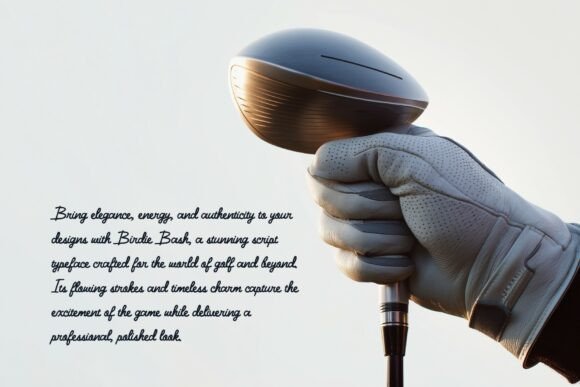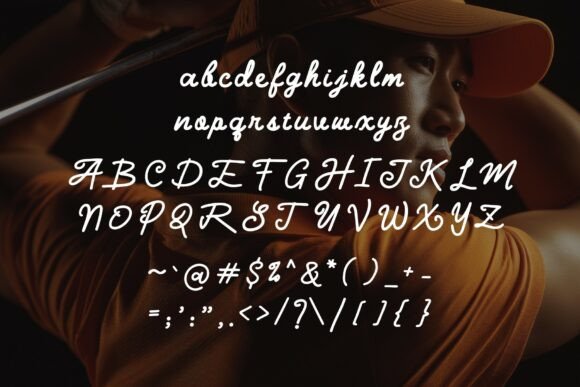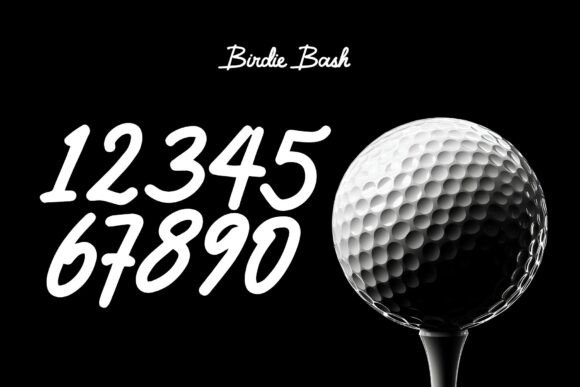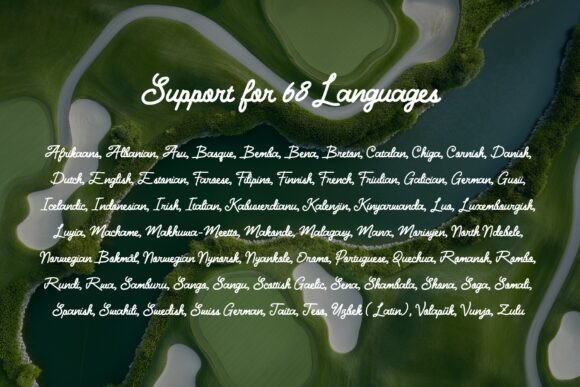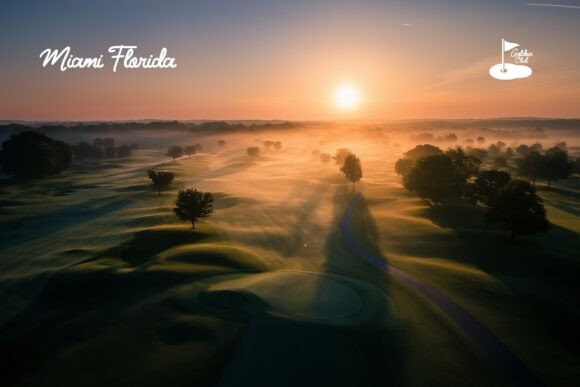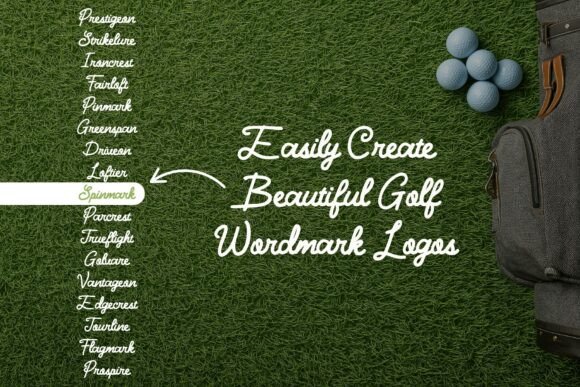
Birdie Bash Font: Elevate Your Designs with Elegance and Energy
Are you looking for a typeface that can bring a touch of sophistication and excitement to your designs? Look no further than Birdie Bash, a stunning script font crafted for the world of golf and beyond. With its flowing strokes and timeless charm, Birdie Bash is the perfect choice for designers and crafters who want to create beautiful, memorable, and impactful work.
The Perfect Blend of Elegance and Energy
Birdie Bash is more than just a font – it’s a design statement. Its refined curves and personal, hand-crafted feel add an instant touch of class to any project. Whether you’re designing for a golf club, a tournament, or a lifestyle brand, Birdie Bash ensures your message lands with impact and sophistication. The font’s elegant strokes and dynamic energy capture the excitement of the game while delivering a professional, polished look.
One of the best things about Birdie Bash is its versatility. This stunning script typeface can be used for a wide range of design projects, from wordmark logos and golf-related branding to advertising campaigns and event promotions. Whether you’re creating a logo for a golf course, designing an advertisement for a golf equipment company, or crafting an invitation for a charity tournament, Birdie Bash is the perfect choice.
Key Features of Birdie Bash
- Flowing Strokes: Birdie Bash features beautiful, flowing strokes that capture the dynamic energy of the game of golf.
- Timeless Charm: The font’s classic design ensures it will remain timeless and relevant for years to come.
- Refined Curves: Birdie Bash’s refined curves add a touch of sophistication and elegance to any design.
- Hand-Crafted Feel: The font’s personal, hand-crafted feel gives it a unique and authentic touch.
- Versatile: Birdie Bash can be used for a wide range of design projects, from logos and branding to advertising and event promotions.
Why Choose Birdie Bash?
So why choose Birdie Bash over other fonts? Here are just a few reasons:
- Memorable: Birdie Bash is designed to be memorable and impactful, ensuring your message lands with your audience.
- Timeless: The font’s classic design ensures it will remain relevant for years to come, saving you the need to constantly update your designs.
- Full of Personality: Birdie Bash has a unique and authentic personality that will help your designs stand out from the crowd.
Using Birdie Bash in Your Designs
Using Birdie Bash in your designs is easy. Here are a few tips to get you started:
- Pair it with Other Fonts: Birdie Bash pairs well with a range of other fonts, so don’t be afraid to experiment and find the perfect combination for your design.
- Experiment with Colors: The font looks great in a range of colors, so try experimenting with different colors to find the one that works best for your design.
- Use it for Headlines and Titles: Birdie Bash is perfect for headlines and titles, where its elegant strokes and dynamic energy can really shine.
In conclusion, Birdie Bash is a stunning script typeface that can bring elegance, energy, and authenticity to your designs. With its flowing strokes, timeless charm, and refined curves, it’s the perfect choice for designers and crafters who want to create beautiful, memorable, and impactful work. Whether you’re designing for a golf club, a tournament, or a lifestyle brand, Birdie Bash is the perfect choice. So why not give it a try and see the difference it can make in your designs?